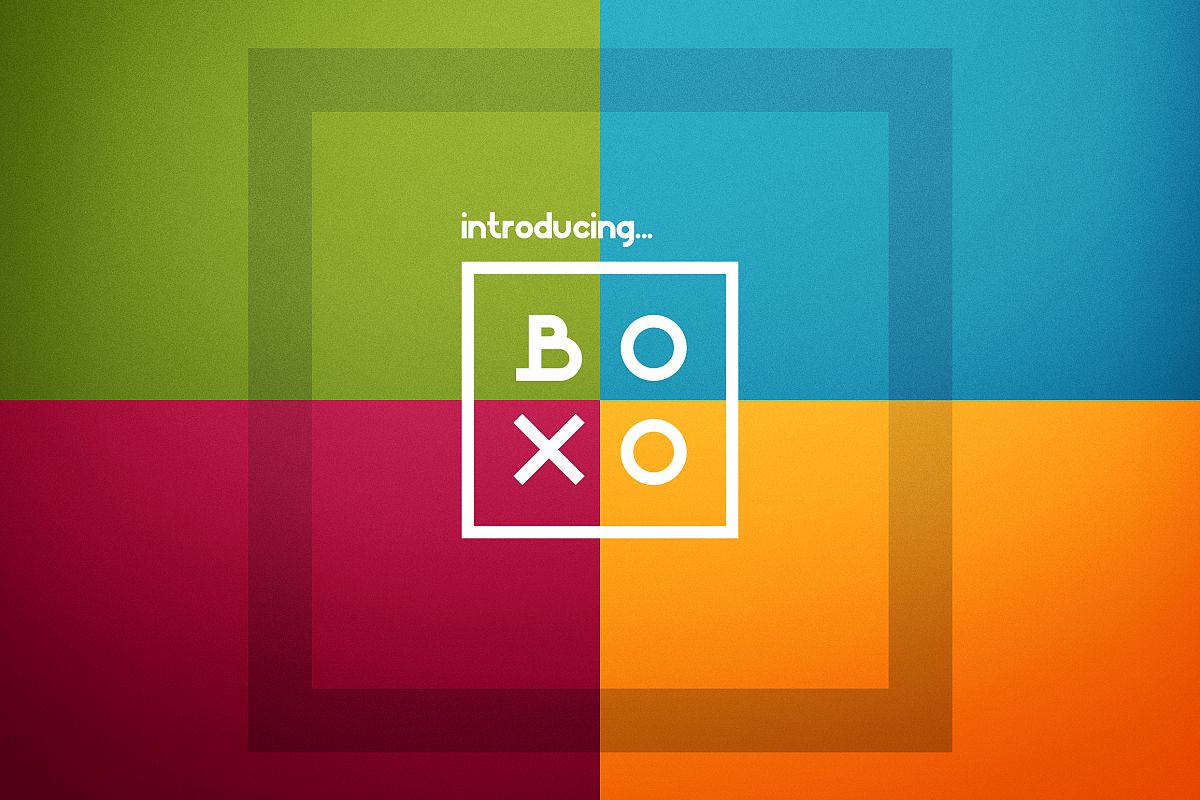
Boxo Font
BOXO-Regular
Boxo sans serif display typeface
Boxo is a sans serif display typeface with round corners. It's a very versatile typeface that works great in large and small sizes, tight and wide spacing.